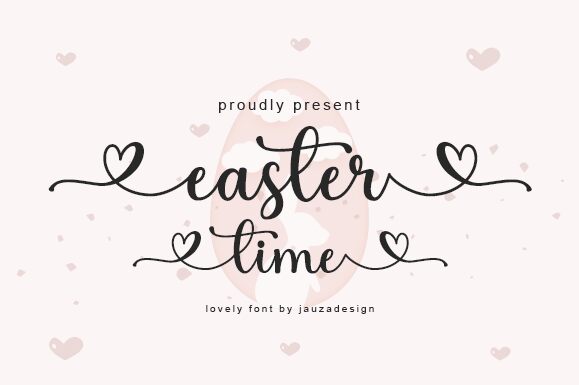
Easter
Easter, designed by the talented Danar Nugroho, is a semi-light calligraphy font that embodies the grace of traditional handwriting with a modern twist. Its thin, delicate script mimics the elegance of hand-penned ink on paper, making it a perfect choice for a wide range of creative endeavors that require a personal touch.
Easter Time stands out due to its PUA encoding, which allows for effortless access to its stunning array of glyphs and ligatures. This feature not only enhances your design flexibility but also ensures that your projects will be infused with an authentic calligraphic charm. Whether you're crafting wedding invitations, branding materials, or bespoke artwork, Easter is poised to immerse your audience in an experience replete with sophistication and style. Witness the magic it brings to your creations and let Easter Time elevate your design narrative.